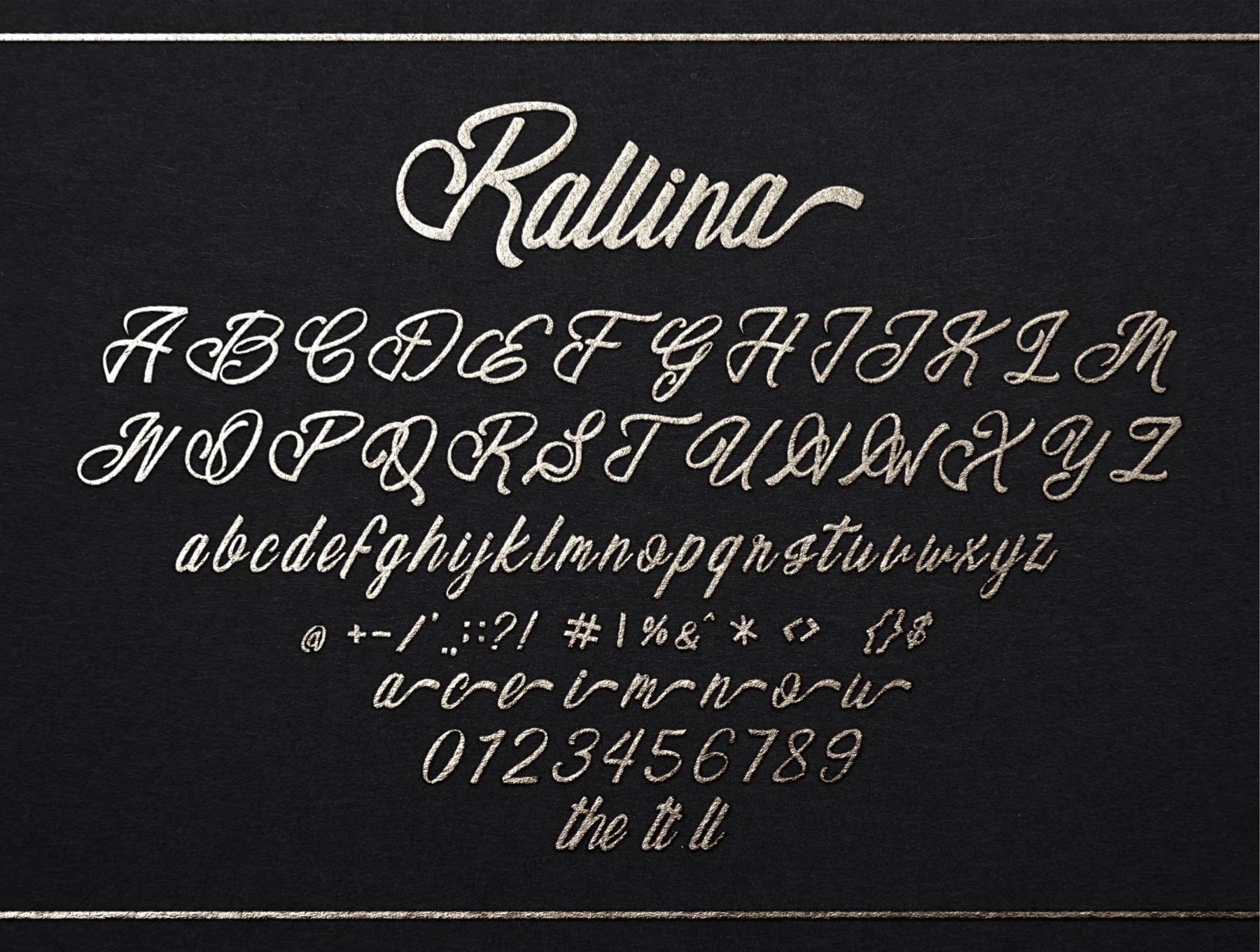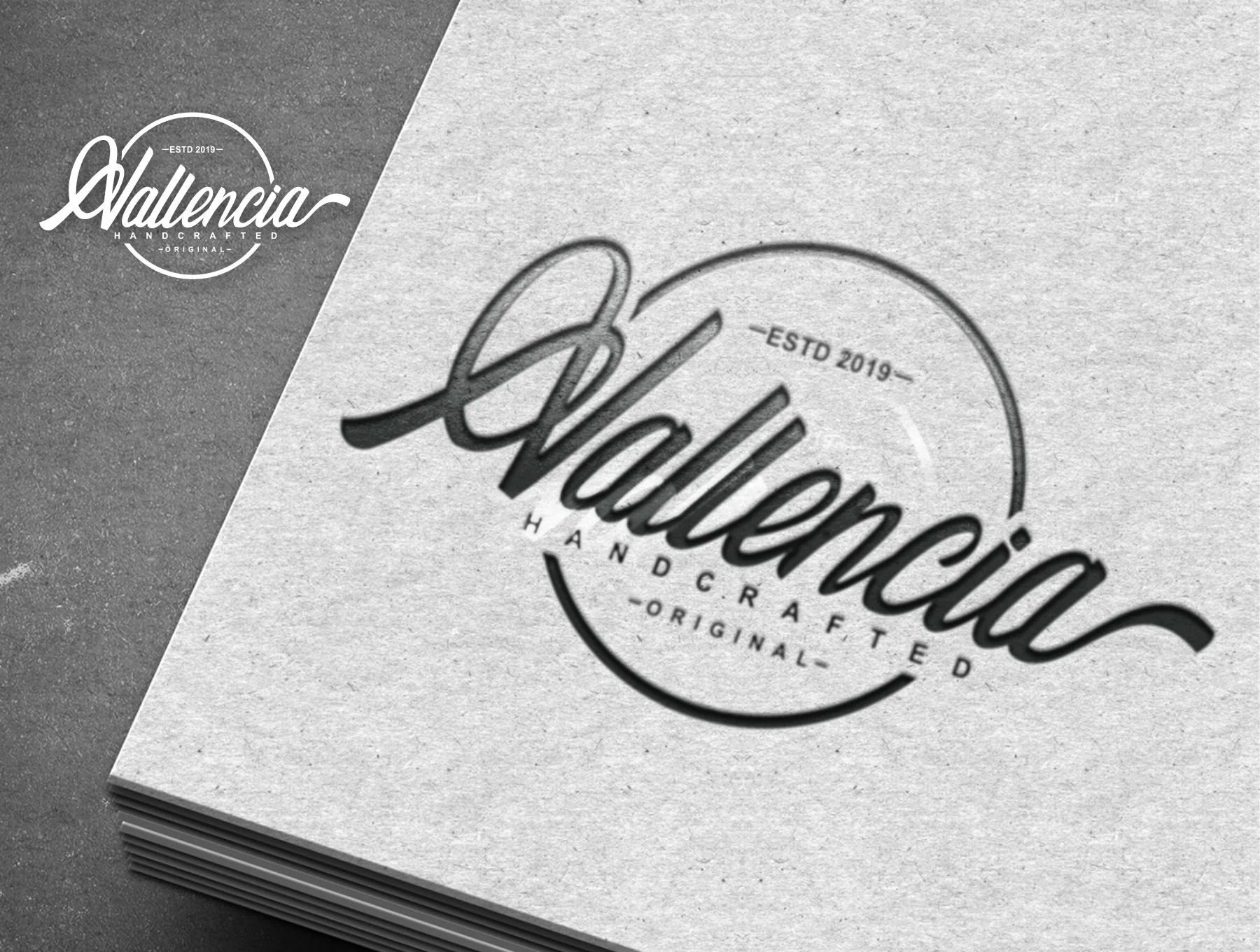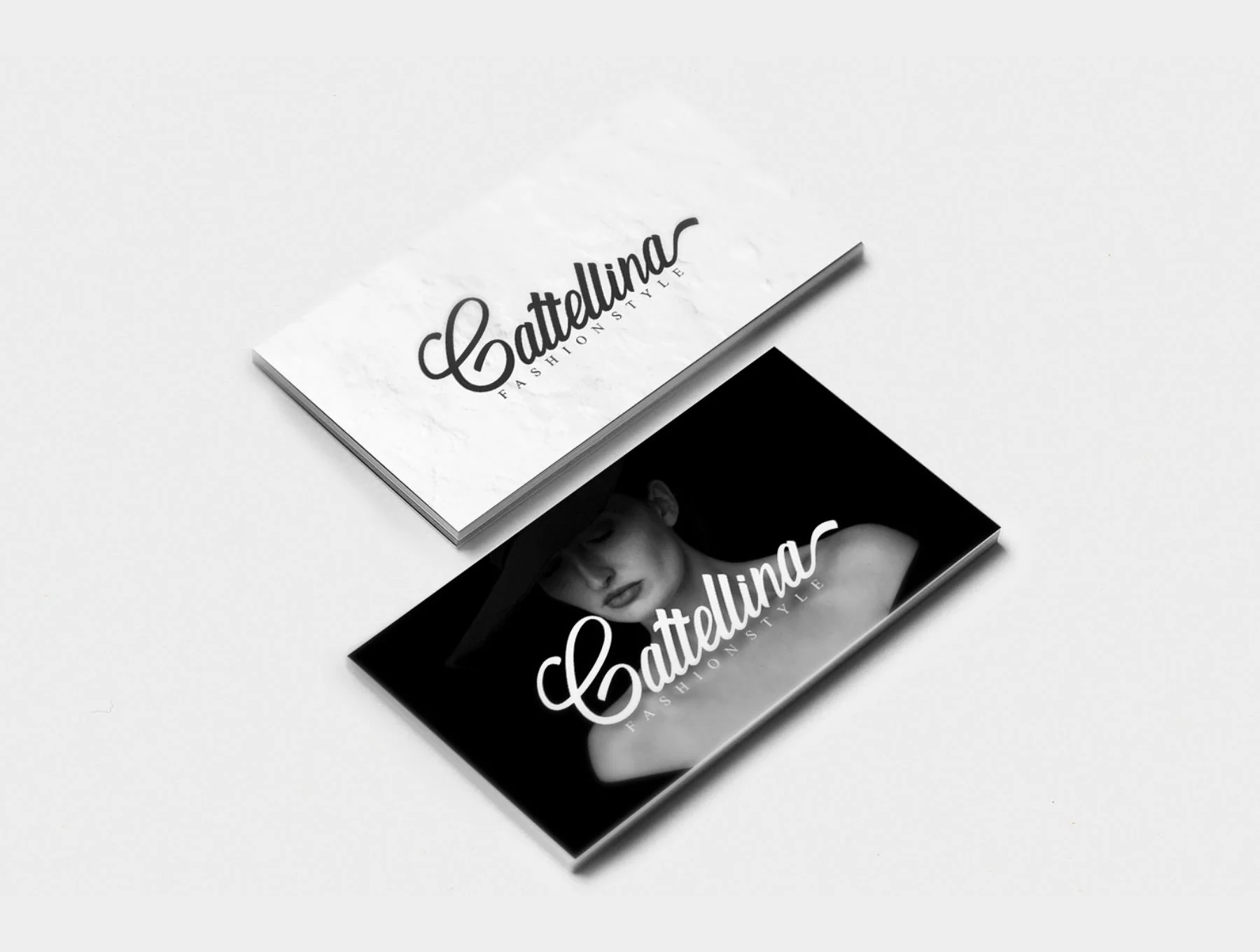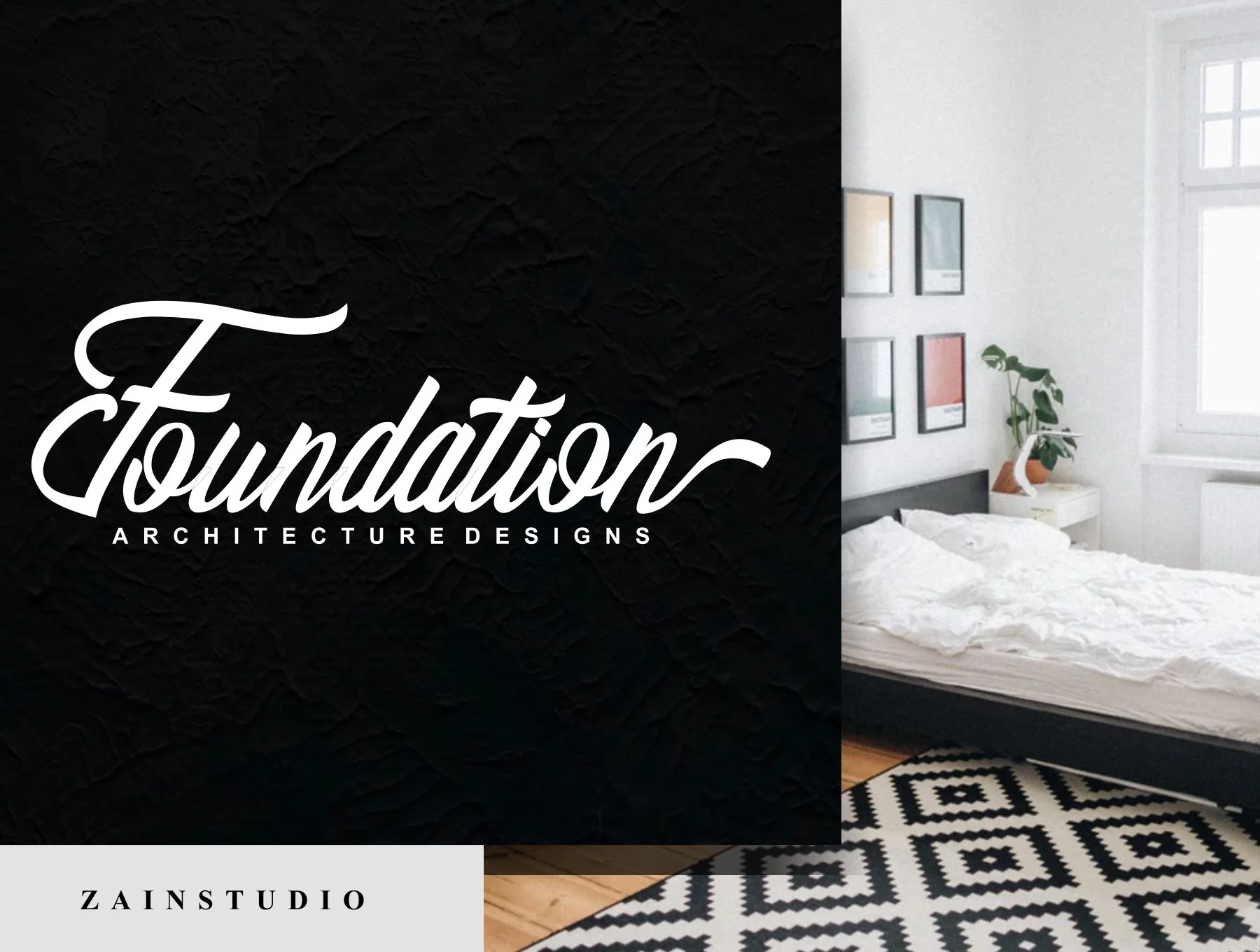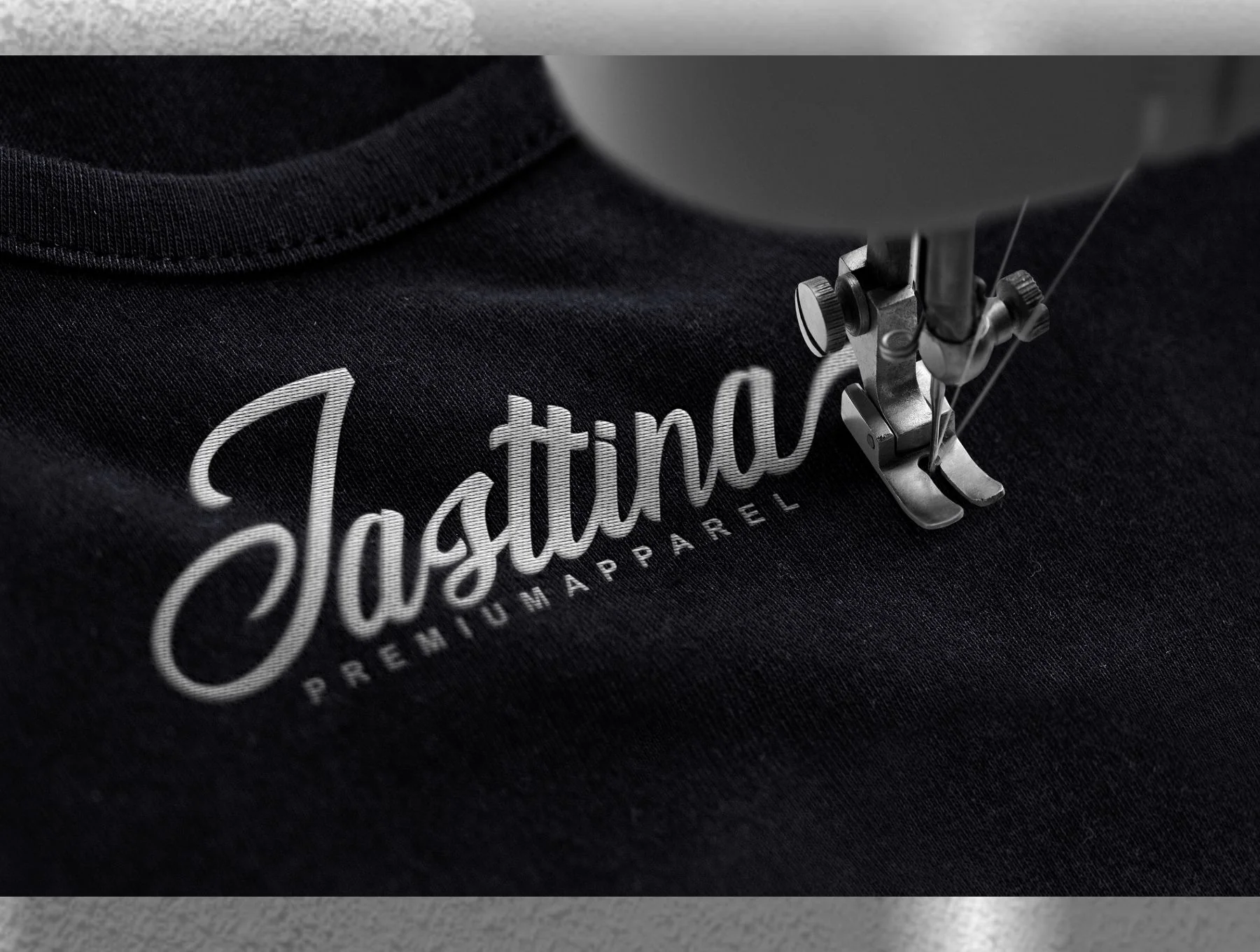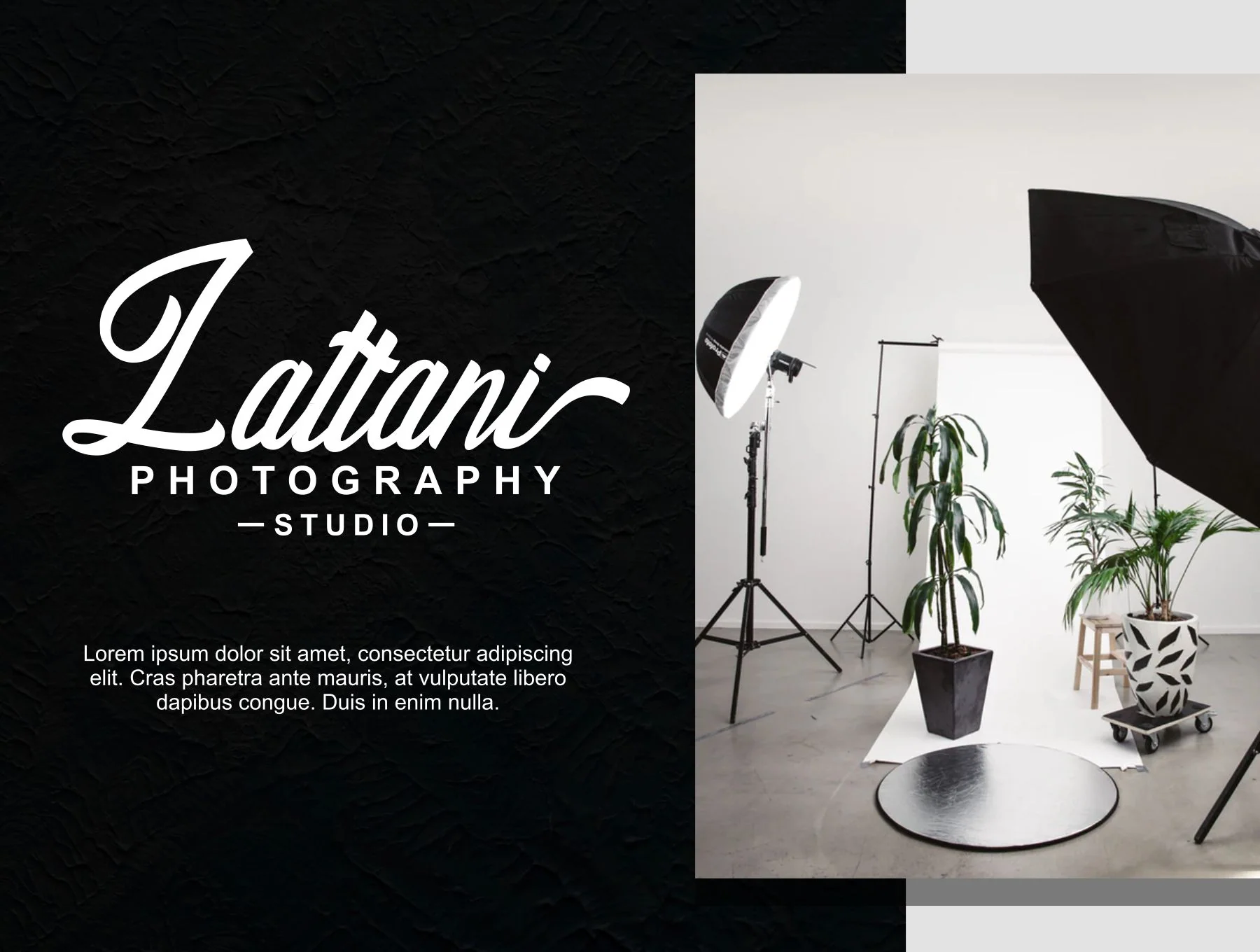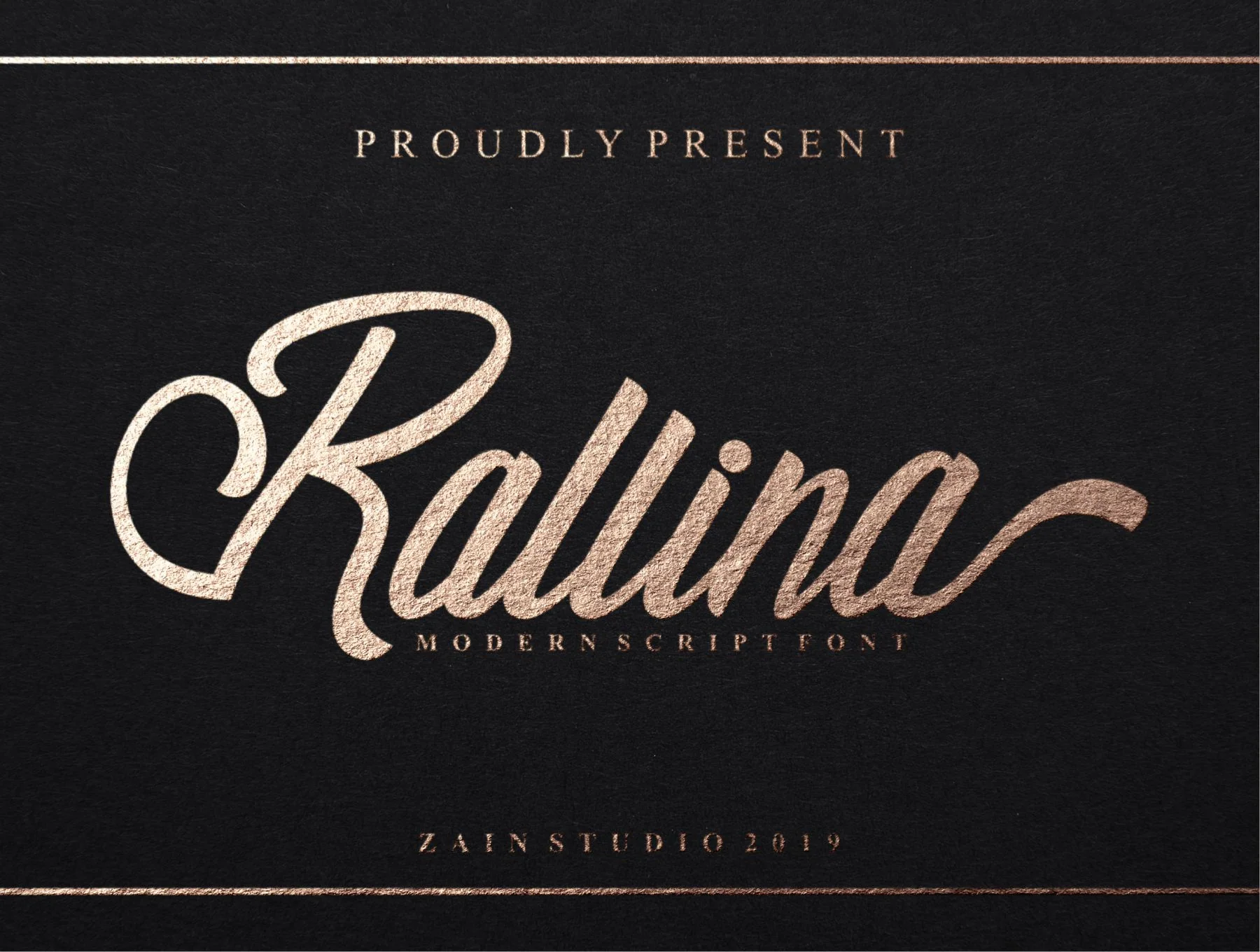
Rallina Font
Rallina is a contemporary script typeface
Rallina Script is a brush-style script font crafted with a pen brush feel. It works well for logos, badges, packaging, headings, posters, apparel, and more. Its smooth, flowing letters help create eye-catching designs. OpenType features include ligatures and swashes to add decorative detail and enhance logo lettering.